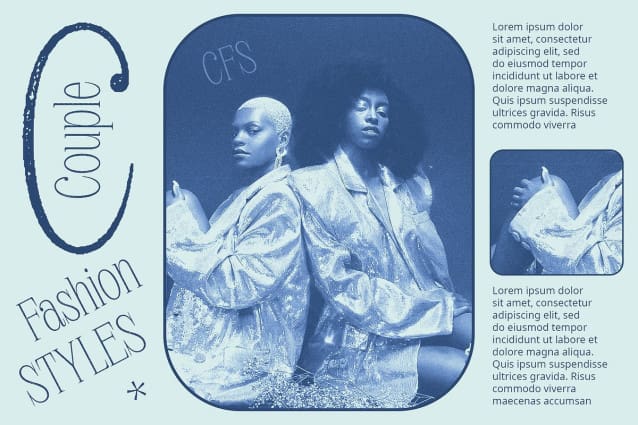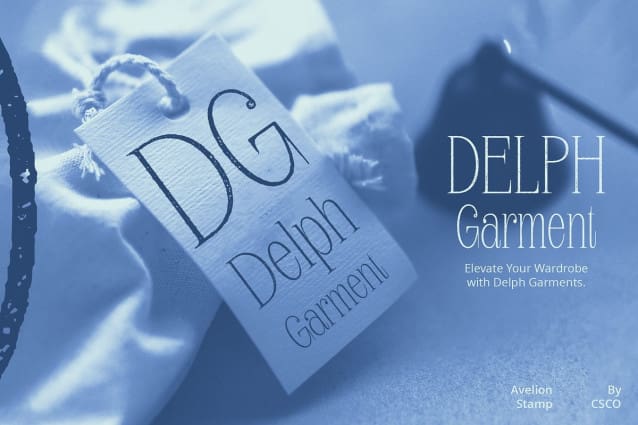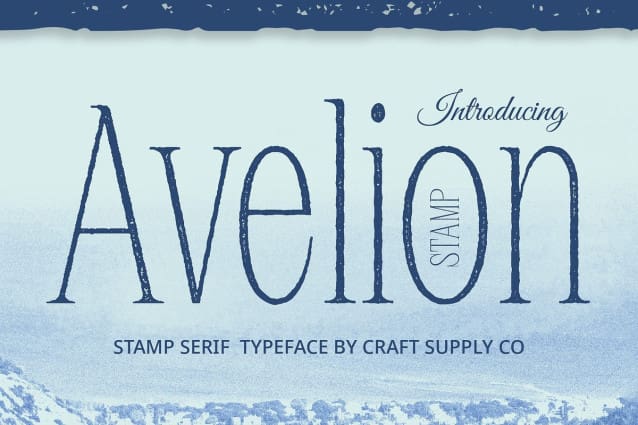
Avelion Stamp Font
Avelion Stamp Font: Elegant Serif Display Typeface. Minimalistic Serif Design Avelion Stamp features a sleek serif design with moderate contrast and thin weight. Its minimalist appearance adds a touch of sophistication to any display project.
Distinctive Stamp Effect The font is embellished with a unique stamp effect, enhancing its visual appeal and making it stand out in the crowded landscape of display typography.
Perfect for Display Purposes Tailored for display needs, This font excels in a variety of contexts, from headlines to branding materials. Its refined serif style commands attention and lends a touch of elegance to any design.
Versatile Application With its versatile nature, This font is suitable for a wide range of applications, including editorial design, advertising, and digital platforms. Its subtle yet impactful presence ensures versatility and adaptability.
Sophisticated Display Typography This font emerges as a sophisticated choice for display typography, combining a sleek serif design with a distinctive stamp effect. With its minimalist aesthetic and versatile application, it offers designers a powerful tool to elevate their projects with elegance and flair.